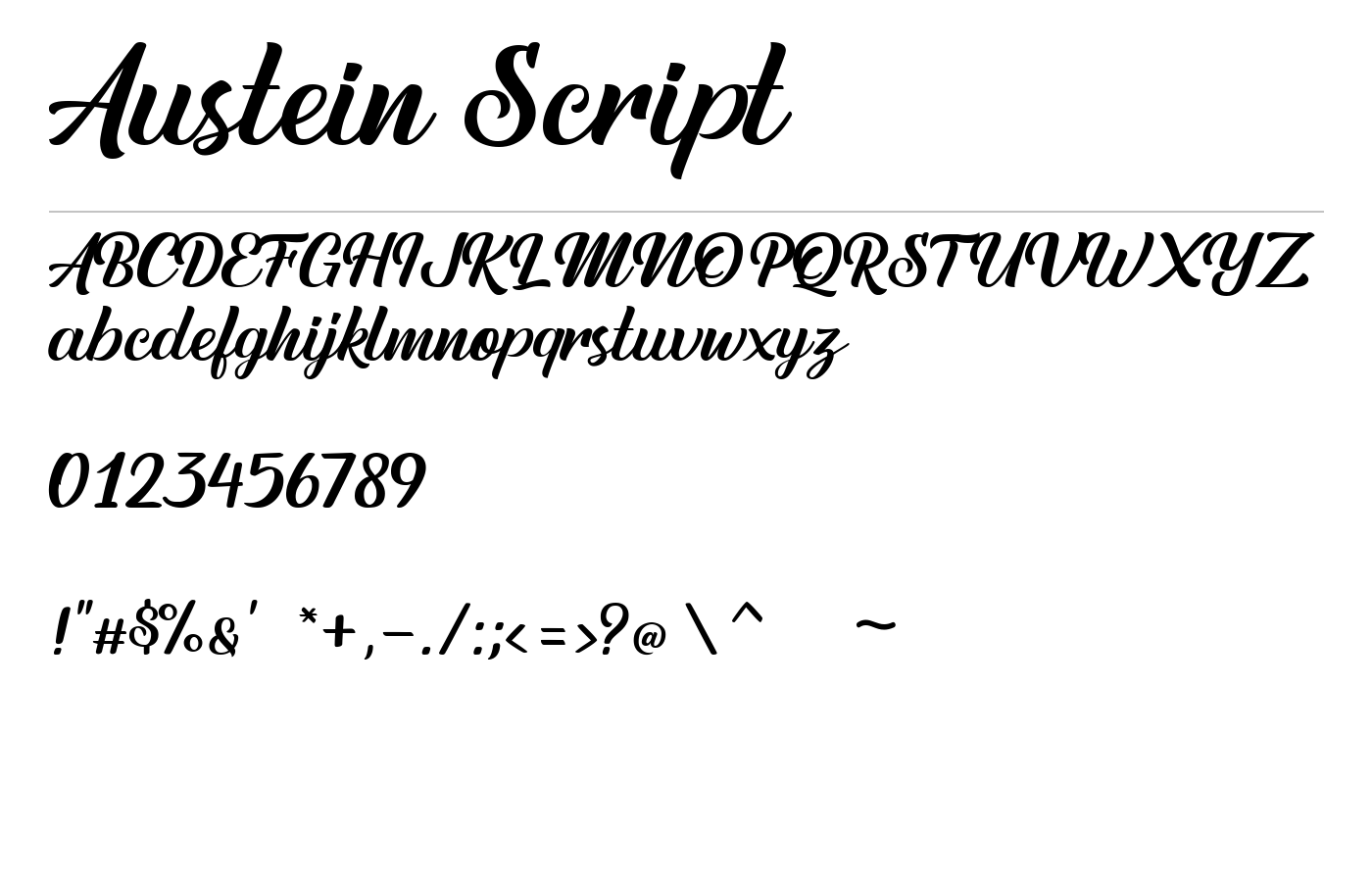
Austein Script is a refined and elegant script font characterized by smooth, fluid strokes and moderate contrast, lending it a graceful yet readable appearance. Its classic calligraphic style with flowing connections and distinctive character shapes makes it ideal for sophisticated branding, invitations, and editorial headlines where a touch of vintage charm and personality is desired. This font works best in designs that seek to communicate elegance and warmth without sacrificing clarity.
Austein Font